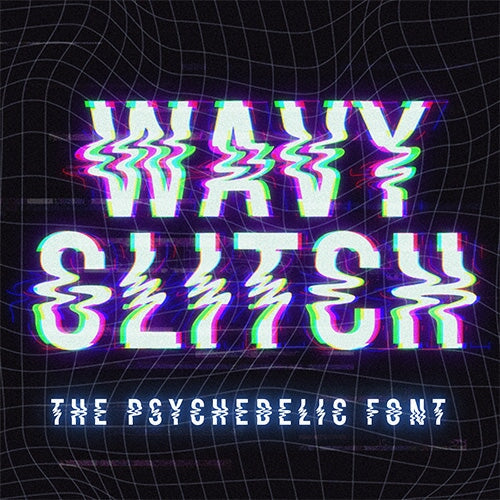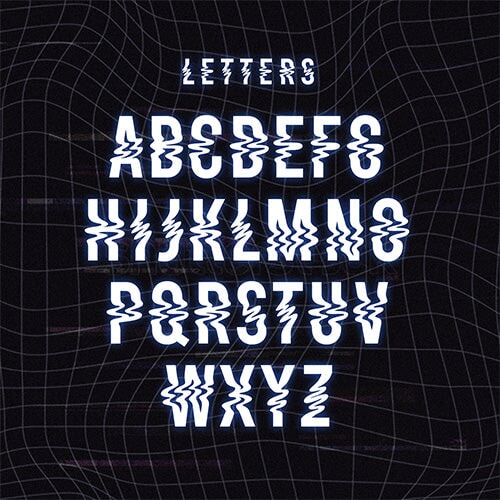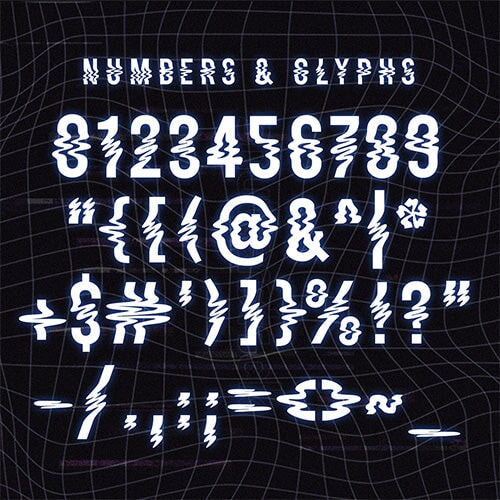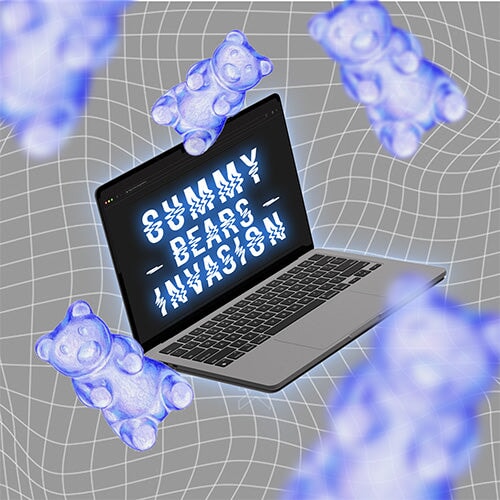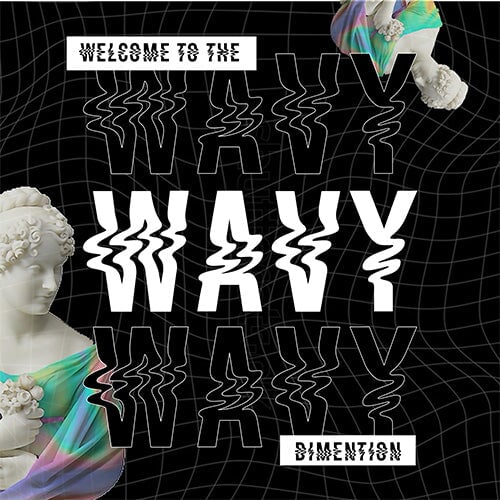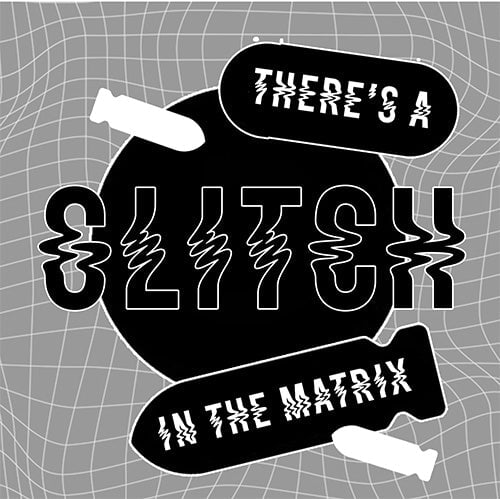
Wavy Glitchy Font (Download Only)
Glitch in the matrix? Nope, just your designs! Add a blip of psychedelic fun to your prints with the Wavy Glitchy Font. This all-caps font is sure to bring that wild energy to any design. Welcome to the Wavy Dimension.
FEATURES
• Includes solid style
• All letters, numbers, and symbols are included